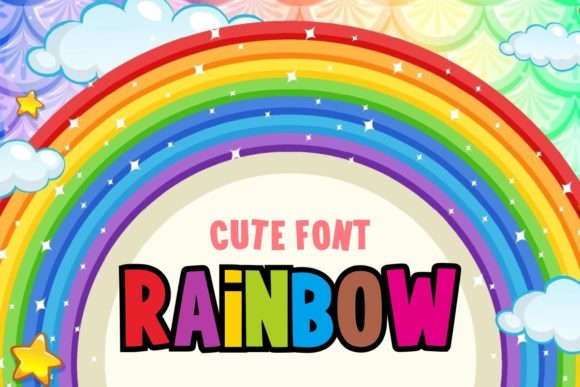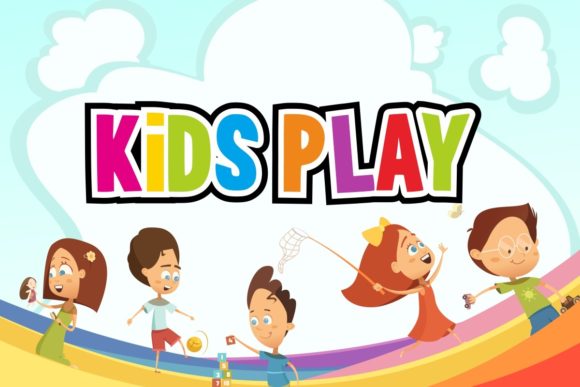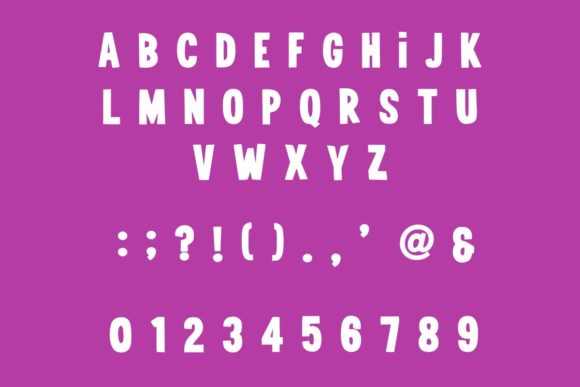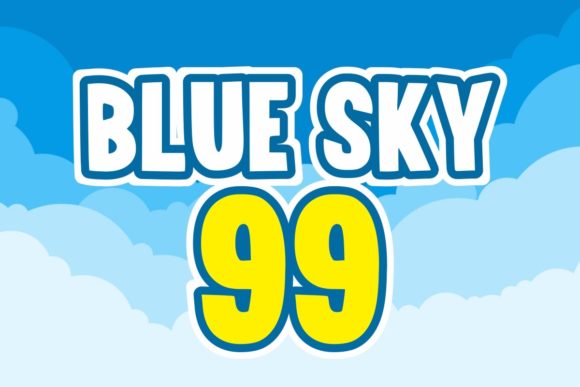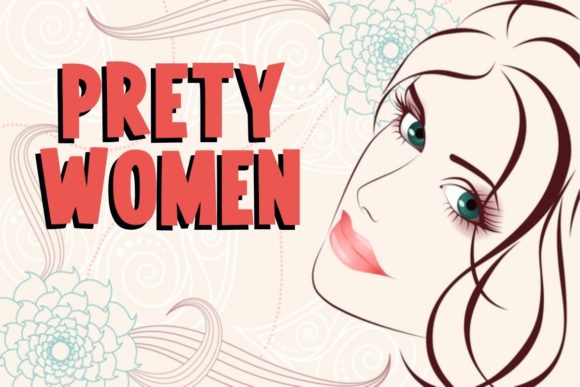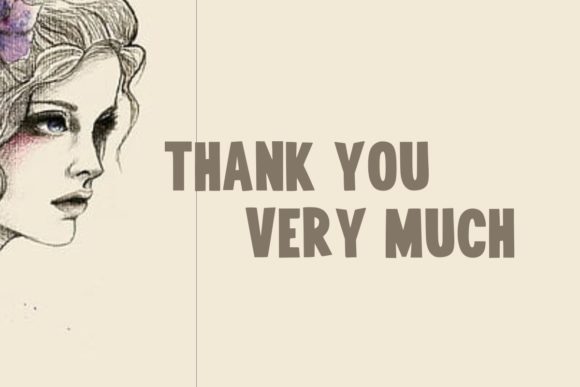
The Quest for the Perfect Font: Discovering Girly Cute
Ah, the eternal search for the perfect font! I recall a particularly frustrating design moment when I was working on a project for a client who wanted a fun, playful vibe. I had spent hours scouring the internet for the ideal font, but nothing seemed quite right. That was until I stumbled upon Girly Cute, a bold, thick lettered display font that instantly captured the relaxed, casual essence my client was looking for.
An Honest Review of Girly Cute
So, what makes Girly Cute so special? Let’s dive into the good stuff! 😊
- ✨ Unique and eye-catching design: Girly Cute’s informal style and casual vibe make it perfect for adding a relaxed touch to any design project.
- ✅ Versatility: This font is suitable for a wide range of applications, including product packaging, invitations, quotes, t-shirts, labels, posters, and logos.
- 💡 Easy to read: Despite its bold and playful design, Girly Cute remains easy to read, even in smaller sizes.
Of course, no font is perfect, and Girly Cute has a few minor quirks:
- 🤔 Limited use in formal contexts: Due to its playful nature, Girly Cute may not be the best choice for formal or professional projects.
- ⚠️ Overuse can be overwhelming: As with any bold font, using Girly Cute excessively can be overwhelming. Balance is key!
A Practical Guide to Using Girly Cute
The Story Behind Girly Cute
While the true story behind Girly Cute remains a mystery, it’s easy to imagine a designer creating this font as a response to the need for more playful, informal typography. Perhaps they wanted to craft a font that would bring a smile to people’s faces and add a touch of whimsy to their designs.
| Font Name | Girly Cute Font |
| Author | Infinity art Studio |
| What type of projects is Girly Cute best suited for? | Girly Cute is perfect for projects that require a relaxed, casual touch, such as product packaging, invitations, quotes, t-shirts, labels, posters, and logos. |
| Is Girly Cute available in different styles or weights? | While Girly Cute is primarily available as a bold, thick lettered display font, some variations may exist, such as italic or regular styles. |